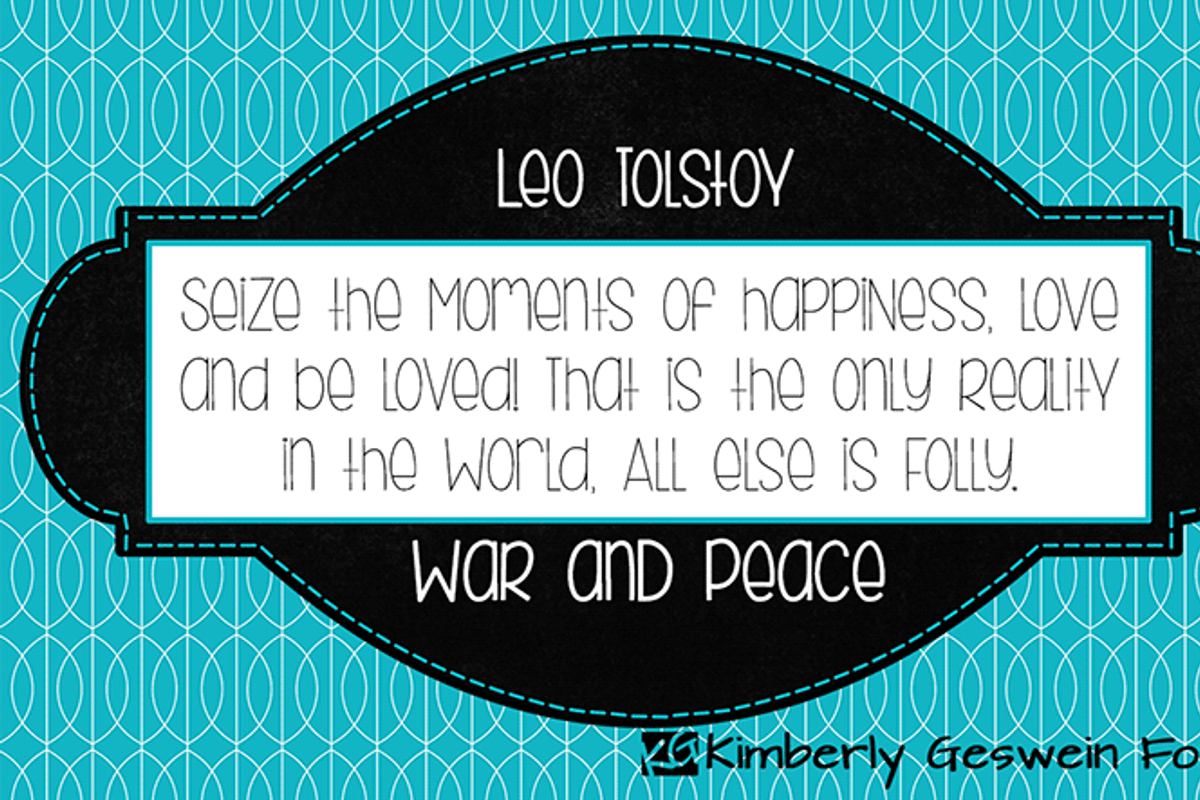
KG Beneath Your Beautiful Font
KG Beneath Your Beautiful Font by Kimberly Geswein Fonts is a font selected for branding, posters, packaging, typography.
Why KG Beneath Your Beautiful Font is worth a look
KG Beneath Your Beautiful Font by Kimberly Geswein Fonts fits naturally into Branding, posters, packaging, typography.